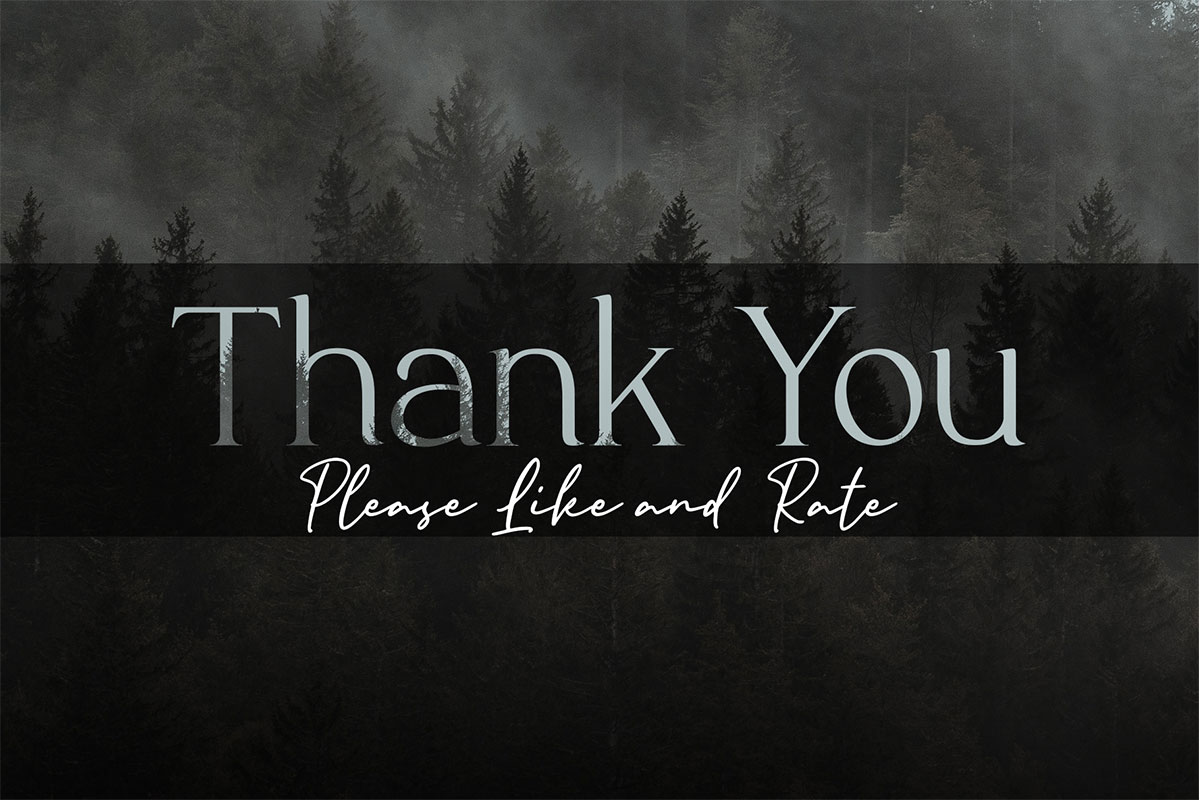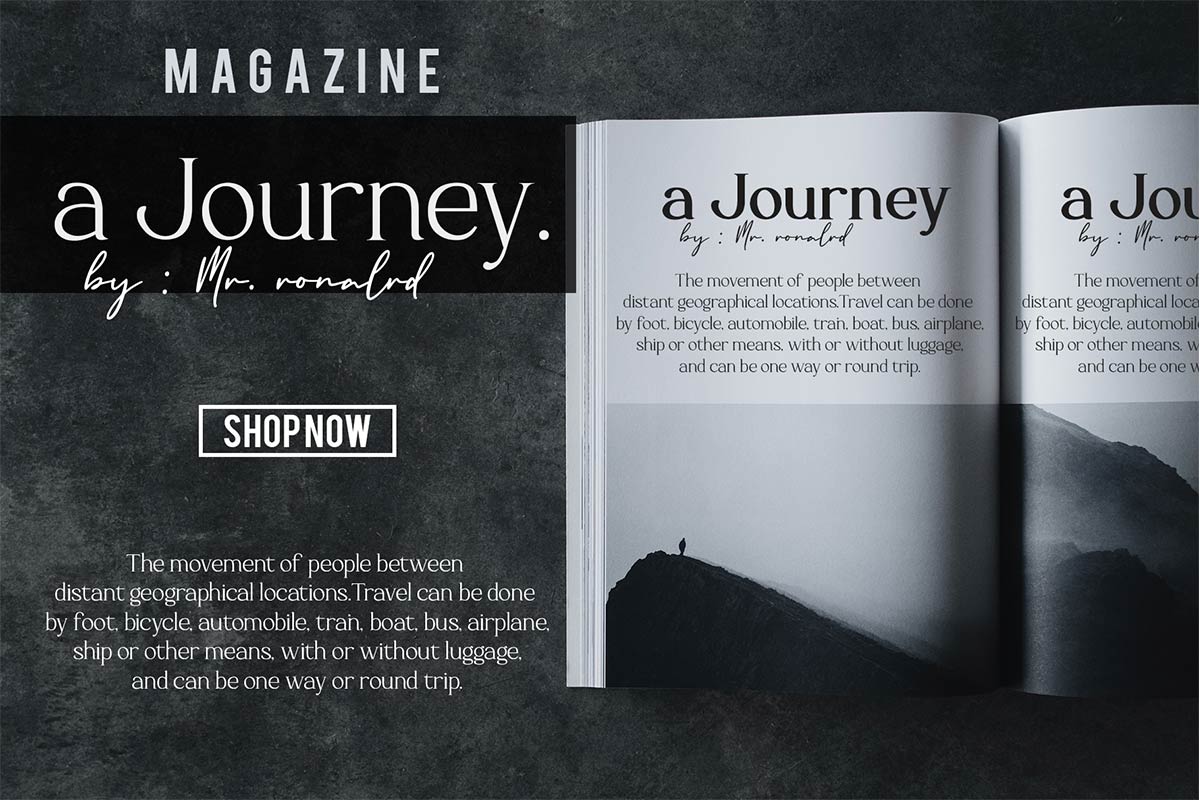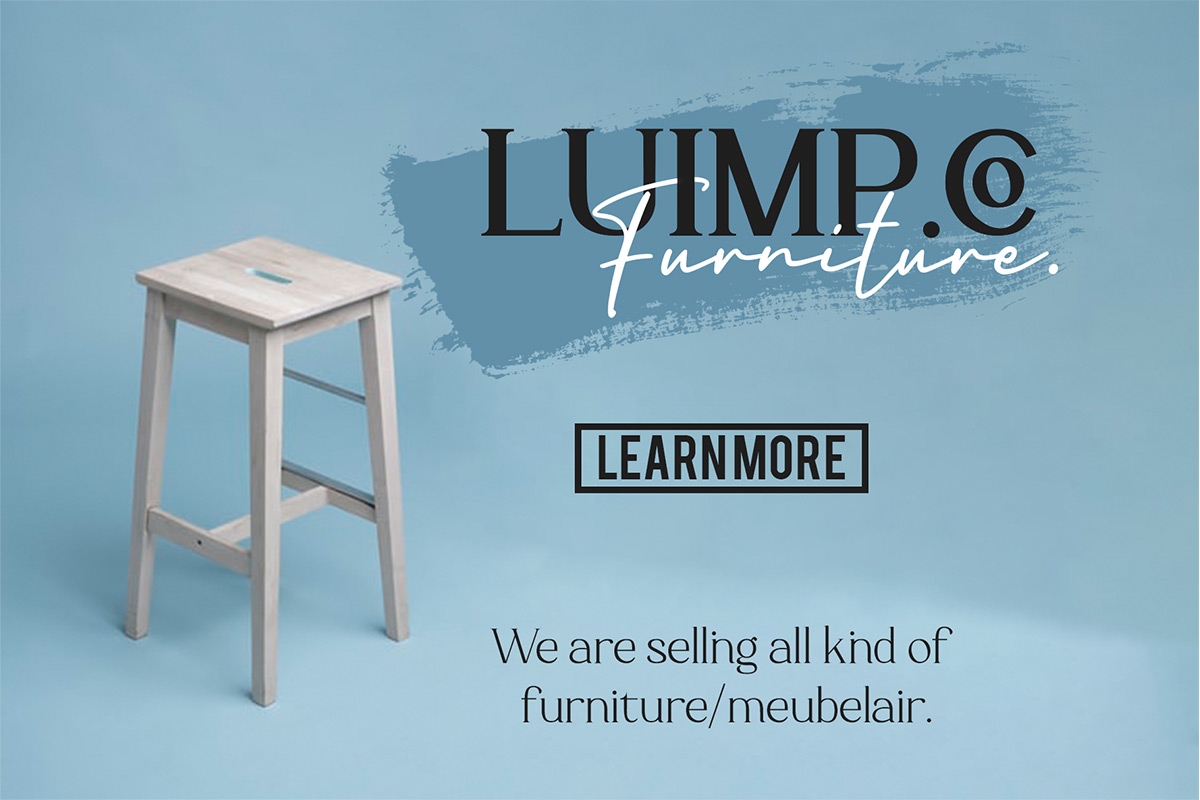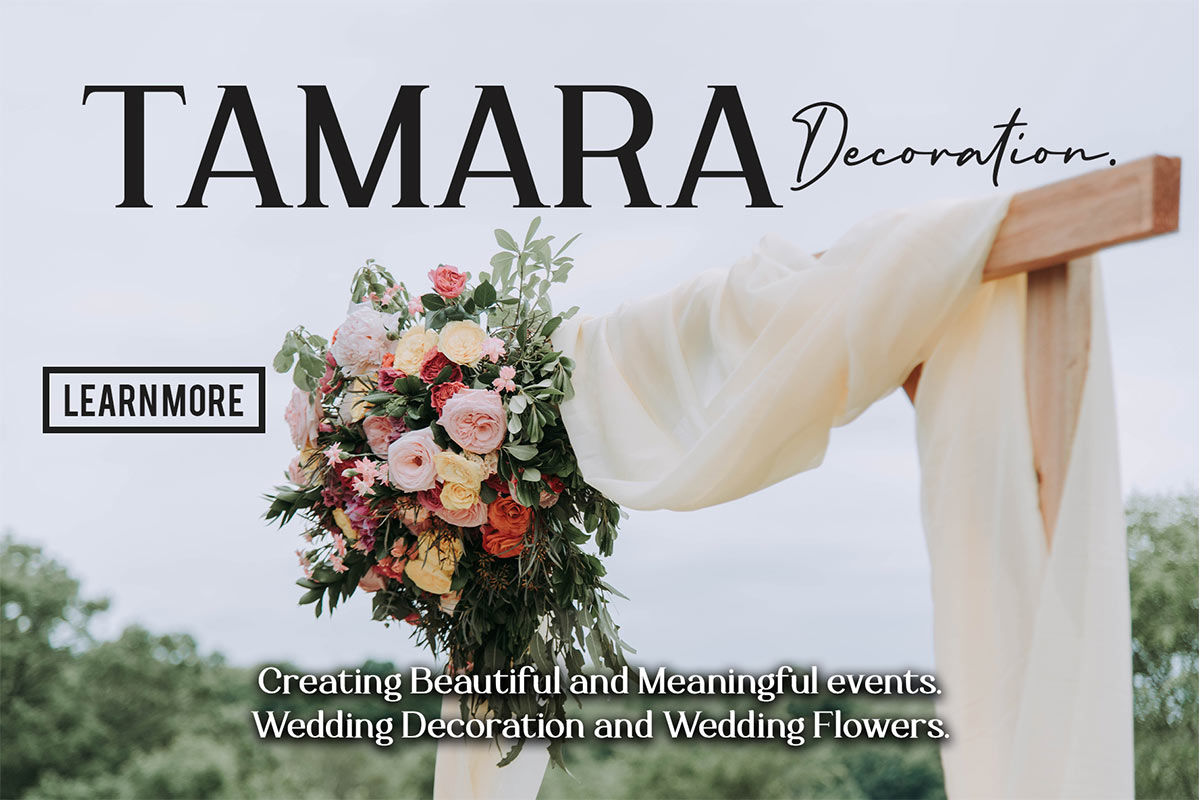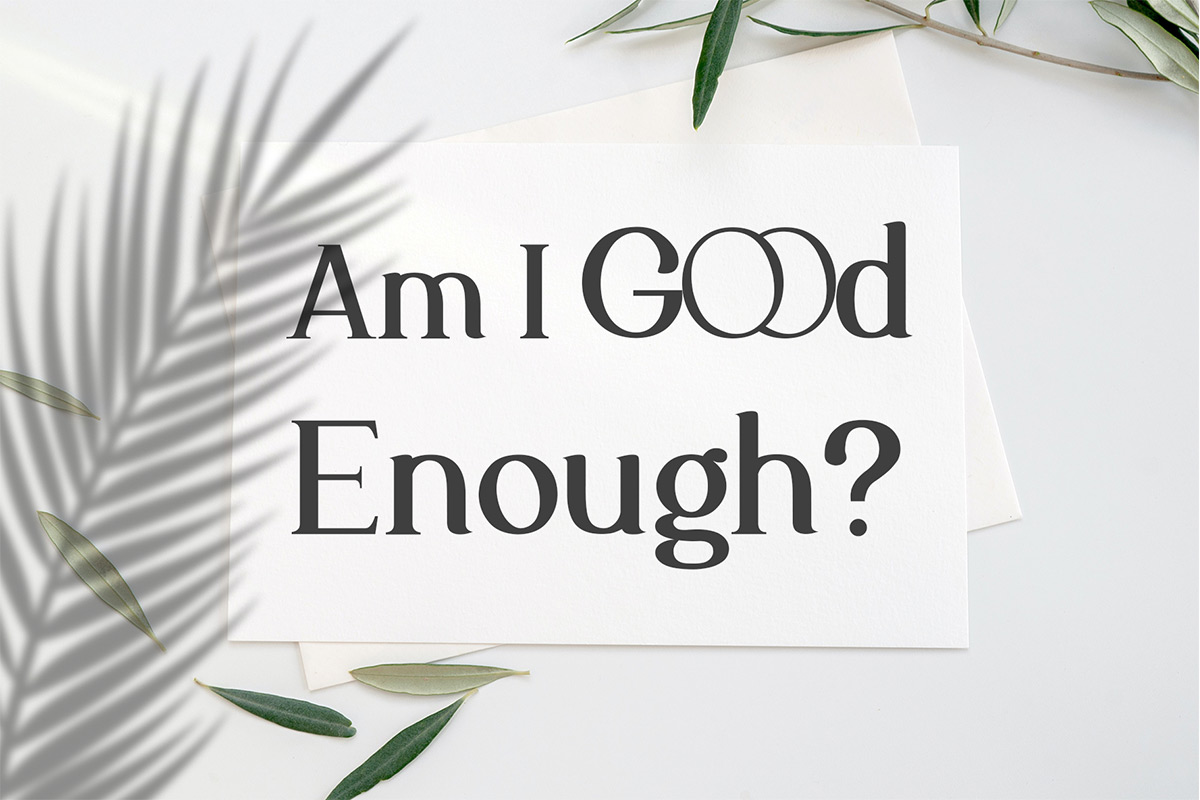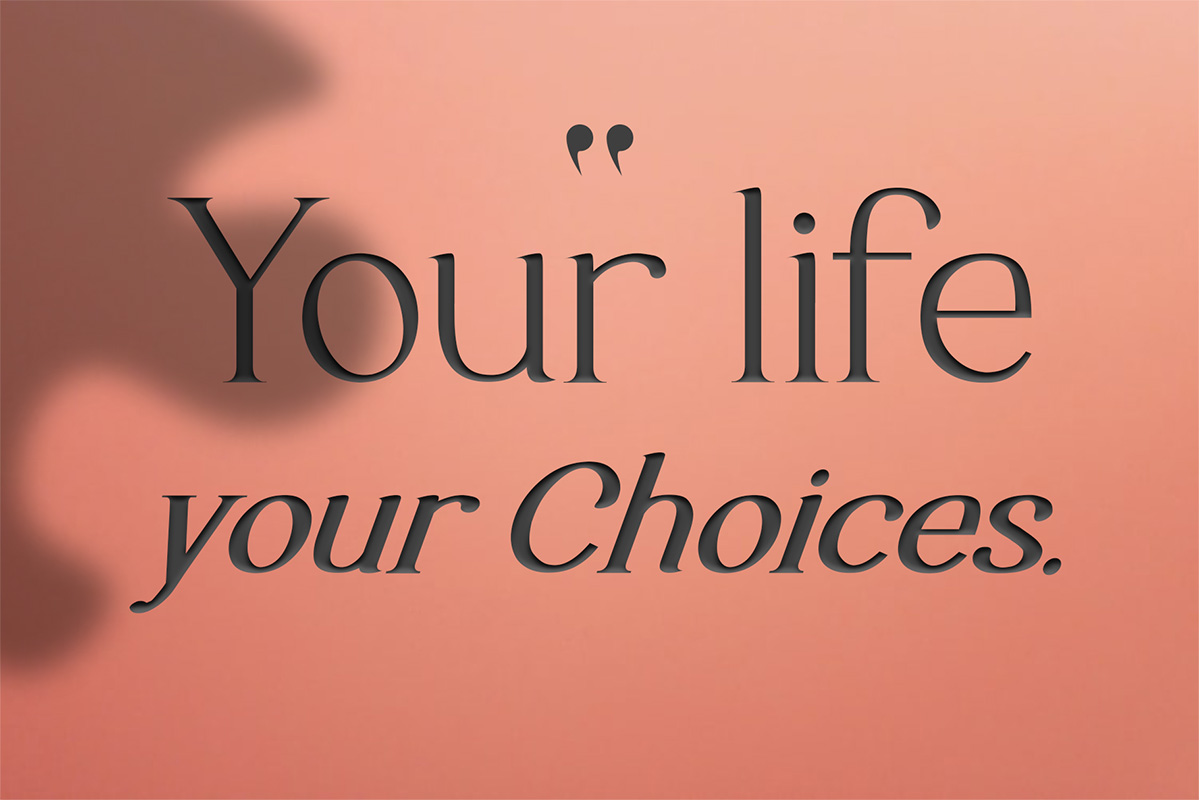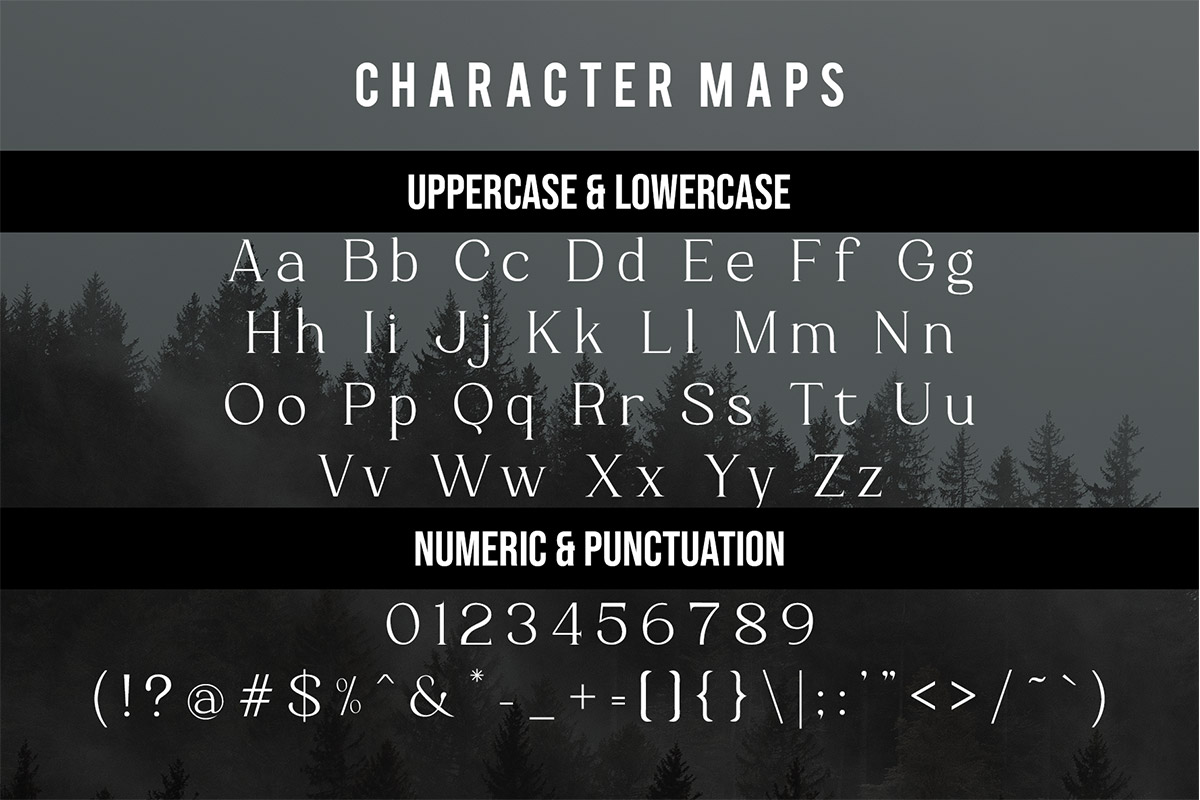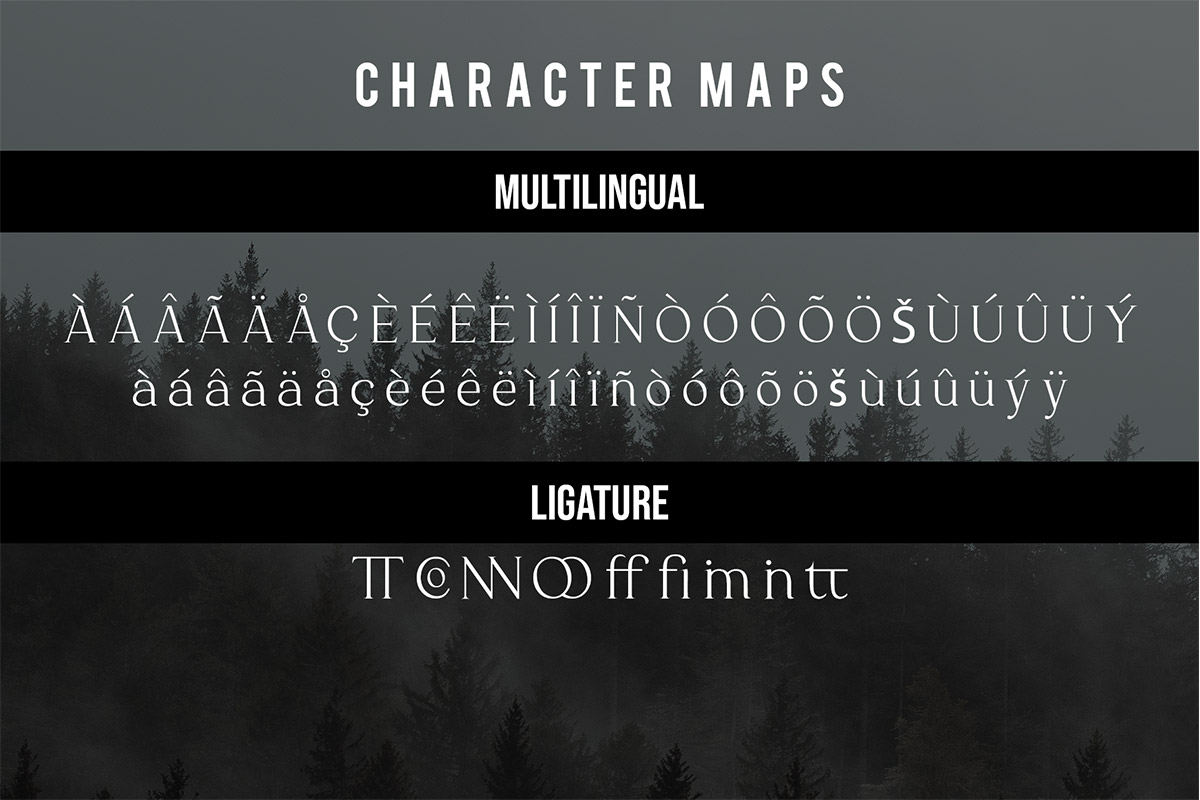
Luimp Font Luimp Modern Serif Font provides a new look different from the general serif fonts. The characteristics of a serif font that has an additional serif remain in this font, but the existing serif follows the actual font shape. Luimp Modern Serif Font is a serif font that looks clean, simple, and upright. It can use as a bold font and modern font. Luimp Modern Serif Font has many matches when combined with the product. Fashion brand tags such as clothing will be compatible if applied with this type of font. There is no need to add excessive pictures and ornaments because Fabious font has presented its identity where a simple yet classic impression radiates. Luimp Modern Serif Font is a typeface that can use as digital fonts and print fonts. This font can use as a title that appears first in intro videos that catch the viewer's attention at a first impression. Posters and magazine covers are especially appropriate when using the Luimp Modern Serif Font. Even though this font is a serif typeface, it can be seen clearly and can be distinguished by each letter. So this font is included in the legible font. Our collection of serif fonts is compatible for use as; Figma fonts, Canva fonts, Freepik Fonts, and Adobe Fonts. They also work as Windows Fonts and Apple Fonts. For your social media needs, you can use and install fonts in our Serif font collection to use as Instagram Fonts, Facebook Fonts, and Twitter Fonts.